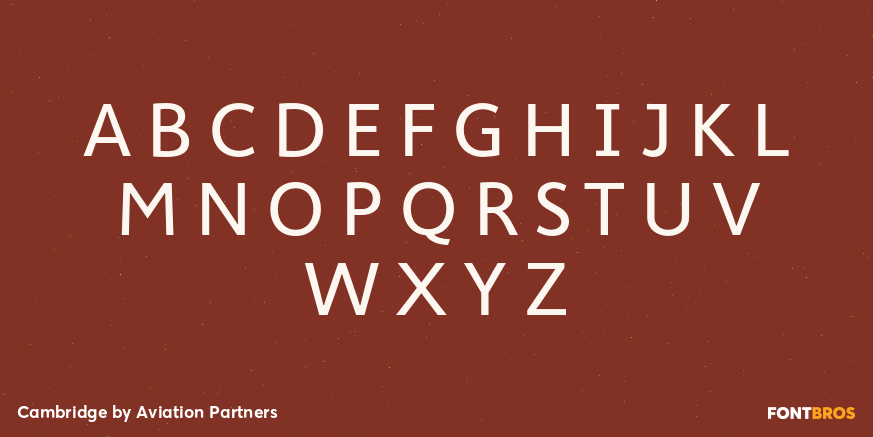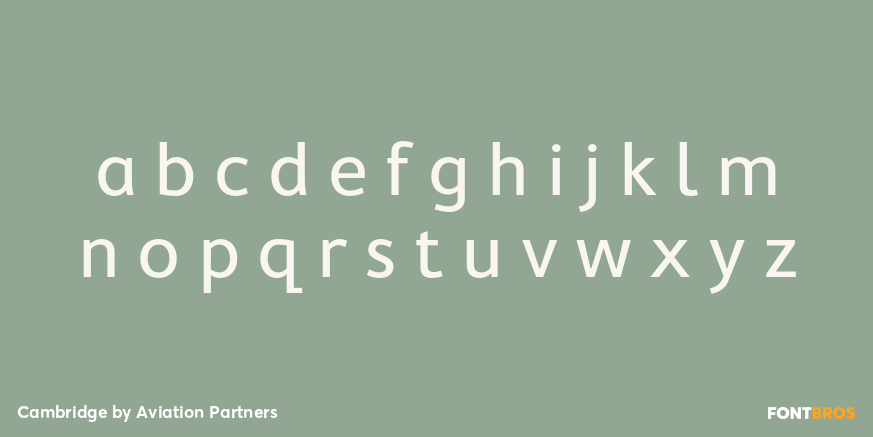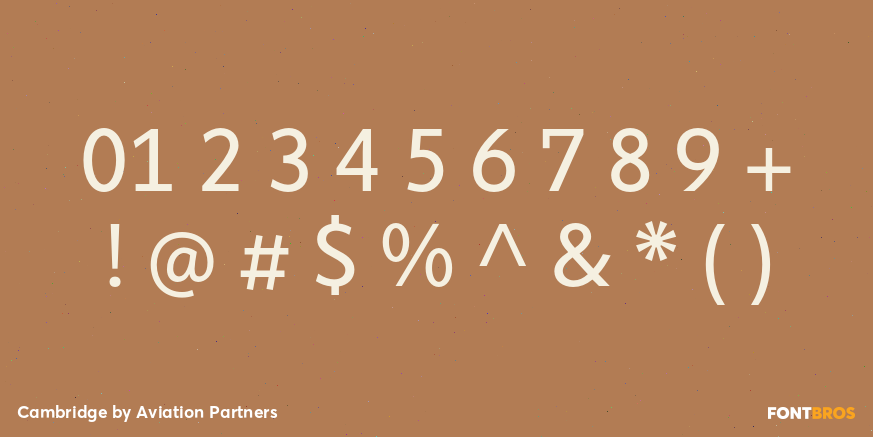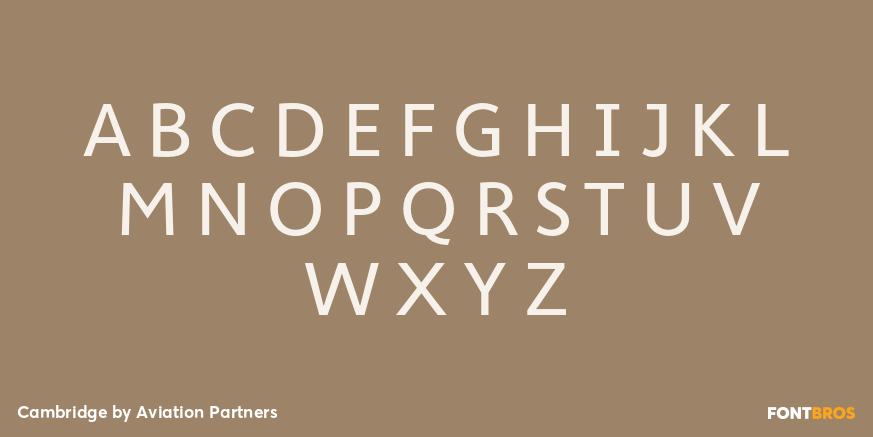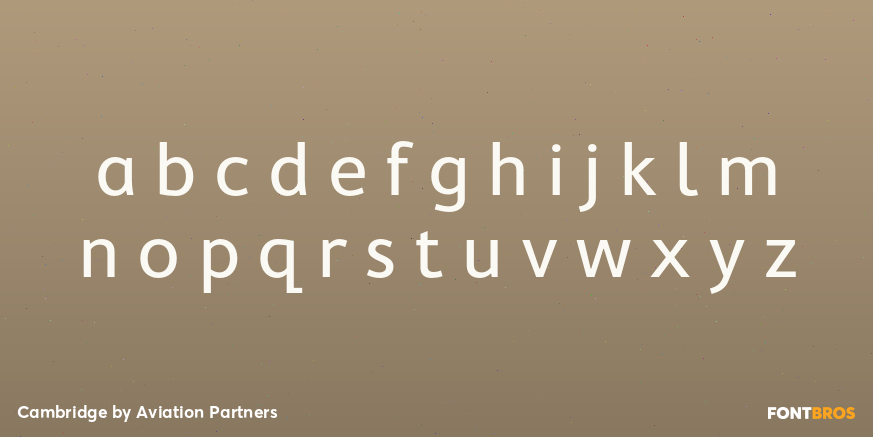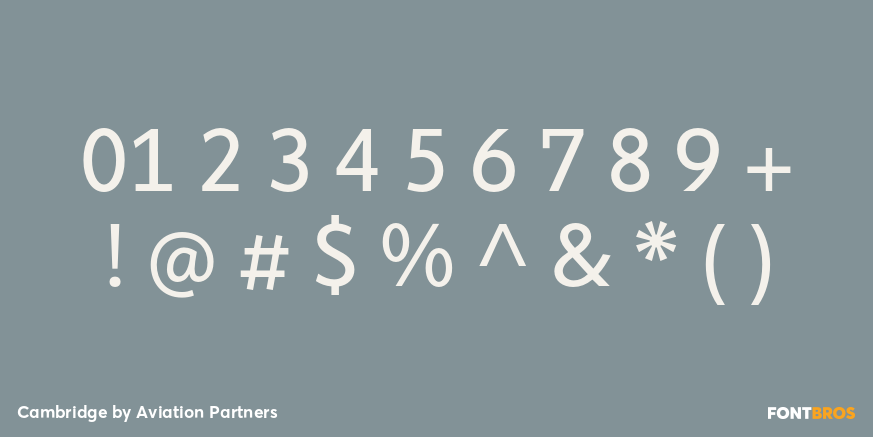
Cambridge
Font Family by Aviation Partners
Buy NowCambridge seeks to build on the popularity of Fiendstar amongst educational publishers and advertisers who need easy-to-read text in a classic sans serif format.
Cambridge is an elegant typestyle that is equally at home in a schoolbook or an annual report. Feedback from users has resulted in a handful of changed letterforms which remove any ambiguities between similar letter forms.
The family contains four weights in three widths and now benefits from matching italic form for all variants.
Cambridge Round provides a rounded version of all styles, useful for headings and more informal texts.